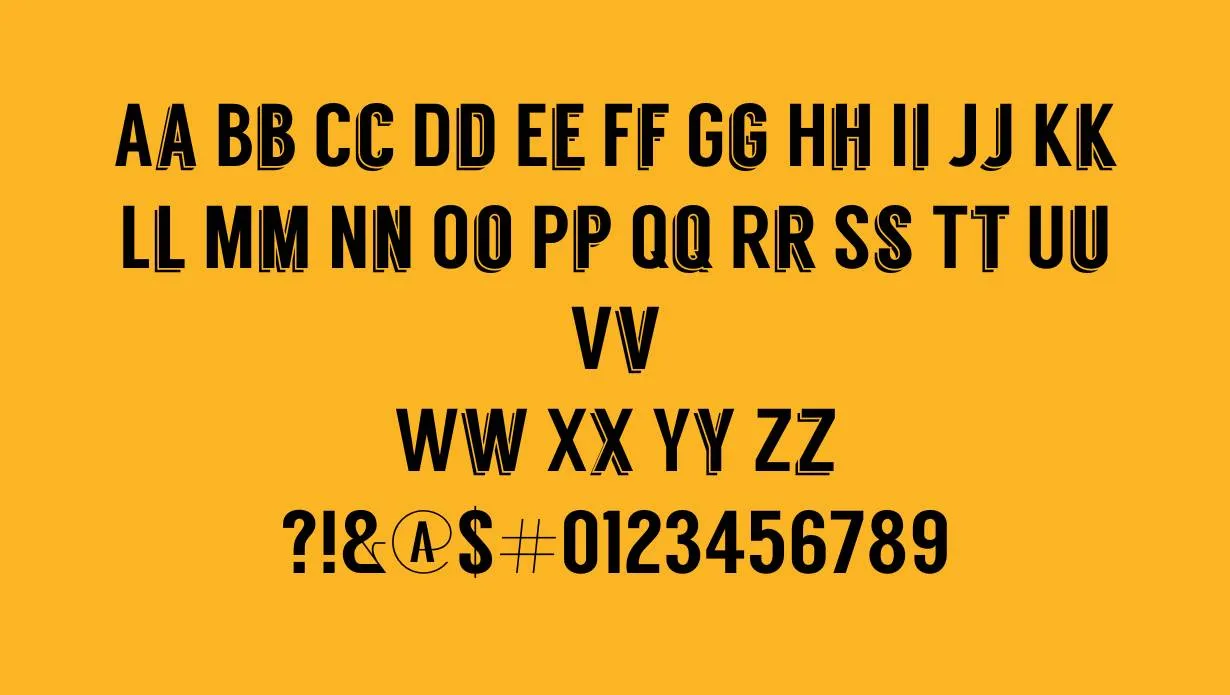
Langdon font boasts a bold, geometric style that’s widely employed in various modern design applications. It’s often chosen for tech-related designs, posters, or logos where a strong and contemporary look is sought.
The font’s blocky and impactful appearance exudes a sense of power and stability, making it a favored choice for designs requiring a robust and confident visual presence. Its strong, clean lines and balanced lettering make it a versatile option for a wide array of design needs, providing an impactful and modern touch to any project.
| Name | Langdon Font |
| Designer | Max Miedinger |